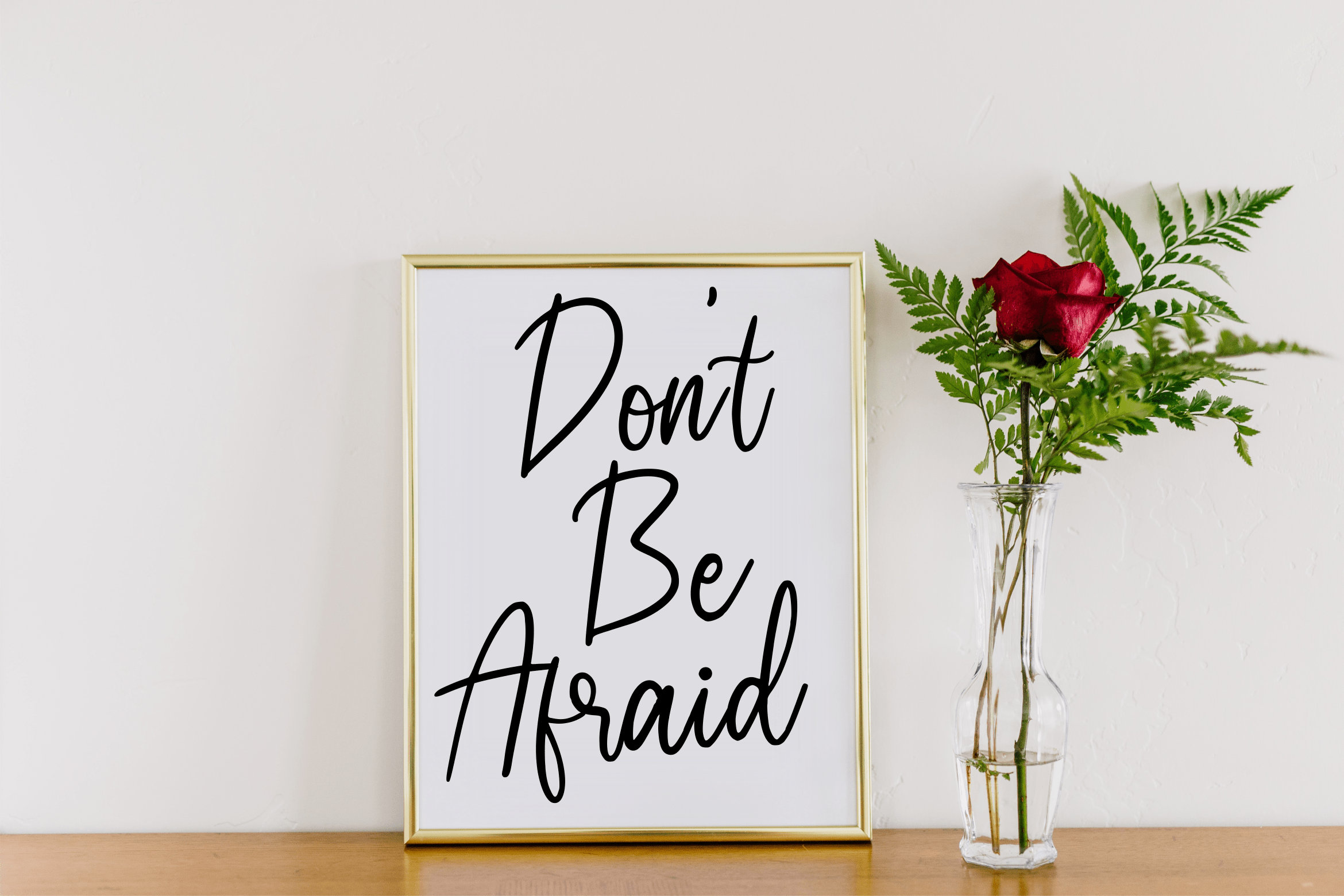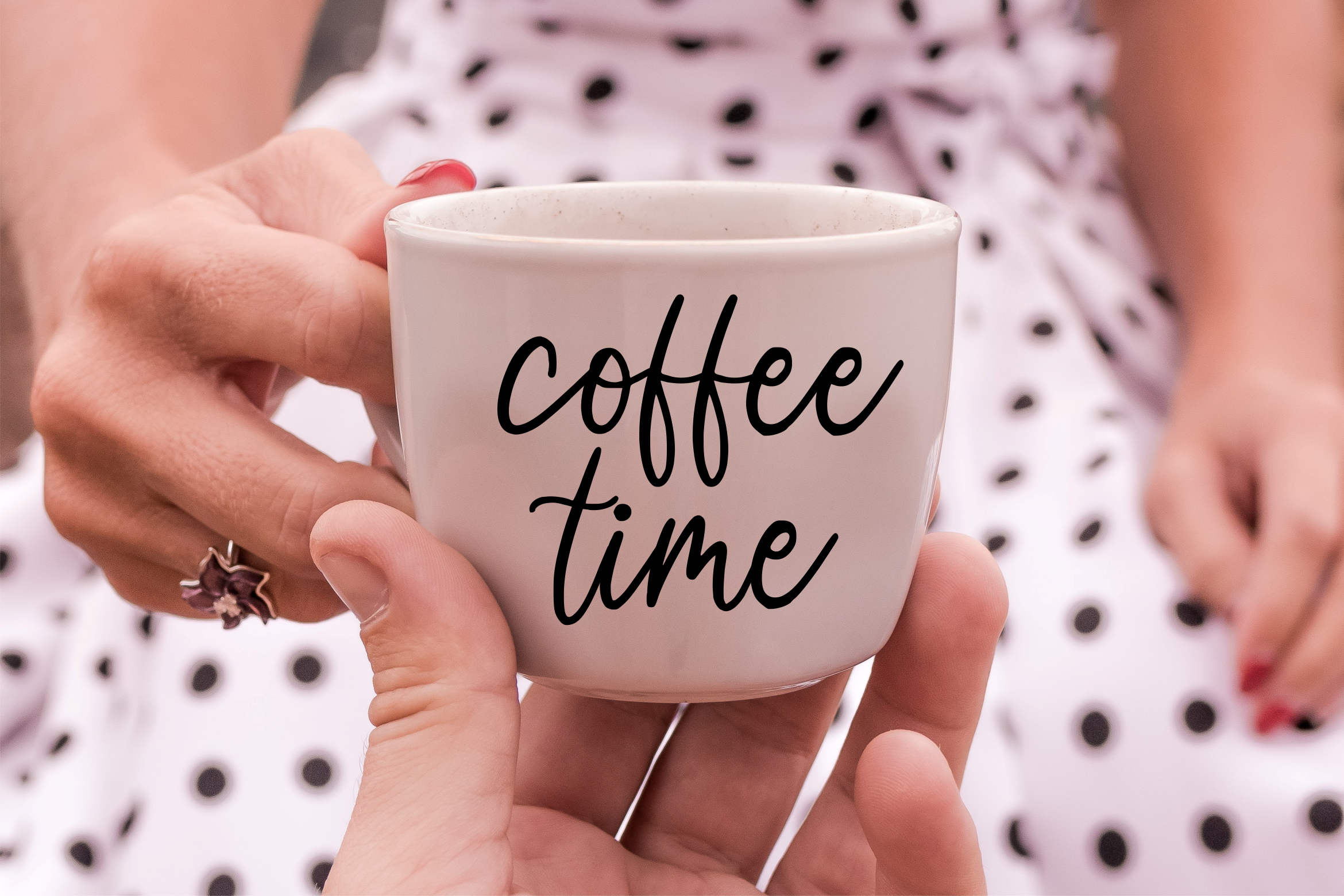
Peachbeary Script Font
This is a Modern Handwritten Font. Peachbeary is perfect for product packaging, branding project, megazine, social media, wedding, or just used to express words above the background.